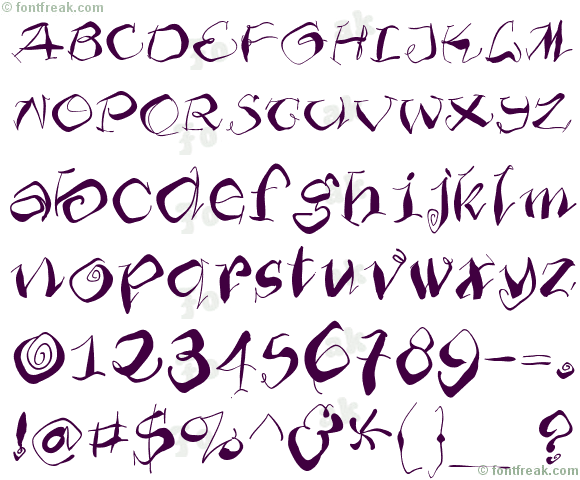
Furioso
About Furioso
Furioso, designed by Manfred Klein, is a captivating decorative font that exudes a whimsical and artistic flair. This font leans towards a script style with playful, swirling elements that add a unique character to any text. Its design features a mix of varying stroke weights, creating a dynamic contrast that draws the eye. The letters are adorned with intricate decorative swirls and curls that enhance its overall expressiveness, making it a perfect choice for projects that require a touch of creativity and individuality.
One of the best use cases for the Furioso font is in wedding invitations, where its elegant yet playful nature can set a romantic tone. Additionally, it works beautifully for movie posters, particularly for films that embrace fantasy or adventure themes, giving them an enchanting feel. Restaurant menus can also benefit from this font, especially for establishments that aim for a quirky or artistic vibe. Furthermore, Furioso is ideal for greeting cards and personal stationery, allowing users to convey heartfelt messages in a visually striking manner.
The target audience for the Furioso font includes graphic designers and small business owners seeking to elevate their branding with an eye-catching typeface. Content creators looking to add personality to their projects will also find this font appealing, as it effortlessly captures attention.